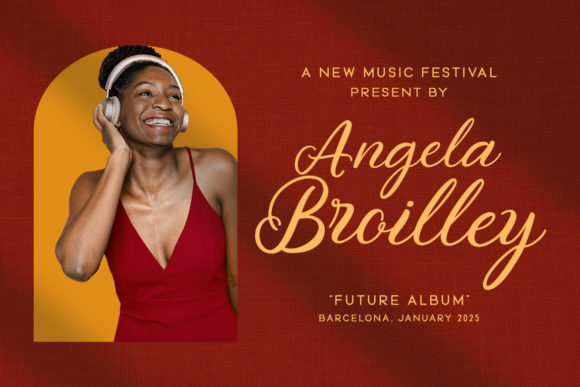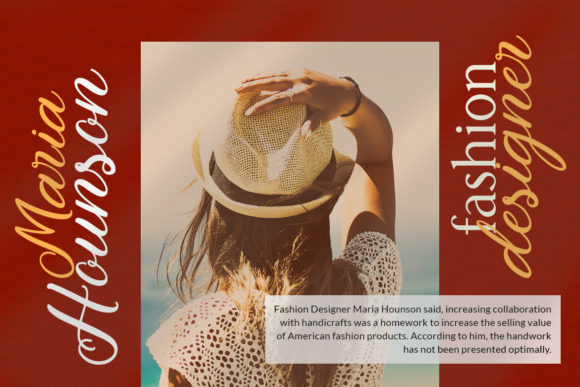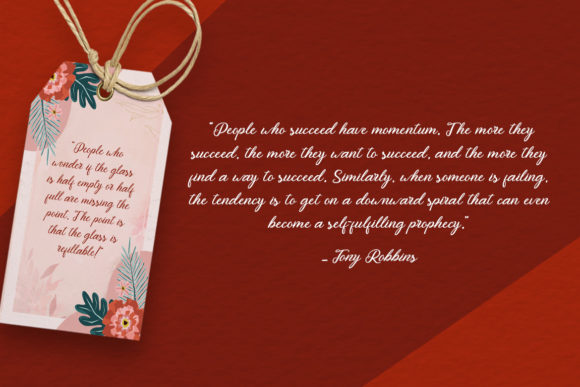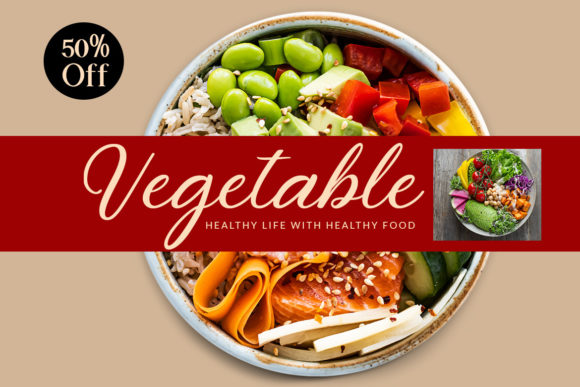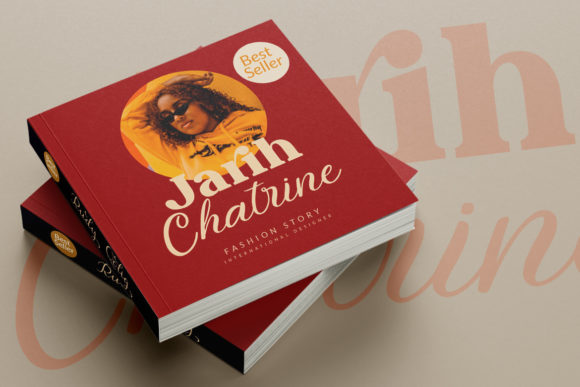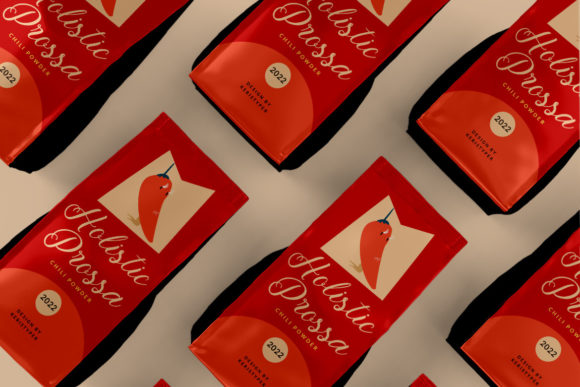
Introduction to Queshia Font
Queshia is a beautiful script designed to made your projects look gorgeous.
It looks stunning on wedding invitations, thank you cards, quotes, greeting cards, logos, business cards and every other design which needs a customized touch .